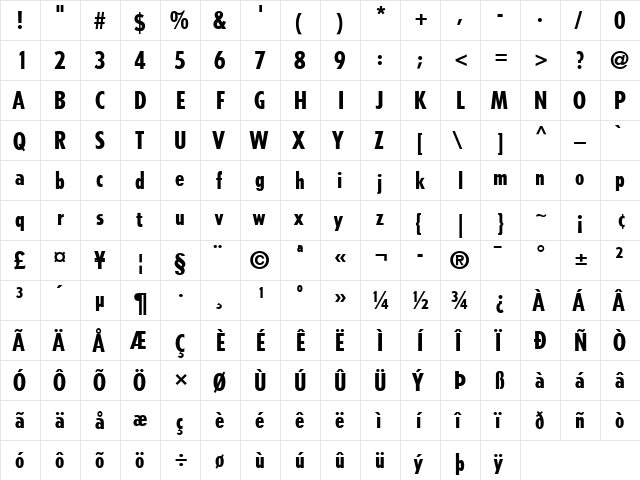
Tempo LT HeavyCondensed Regular
Design Context for Tempo LT HeavyCondensed Typeface
Tempo LT HeavyCondensed offers clean, dependable letterforms without strong stylistic allegiance, making it a practical choice for designers who need flexibility. Its slender proportions lend an understated elegance to any composition. Its narrow stance lets it pack a punch even in space-constrained designs.